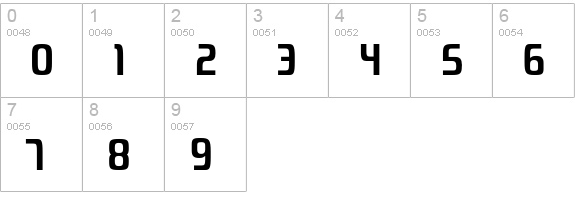
76London Font Details
The 76London font is a modern and stylish typeface that exudes sophistication and elegance. Its clean lines and sleek design make it perfect for a wide range of design projects, from branding to editorial layouts. The font features a unique blend of classic and contemporary elements, giving it a timeless appeal that is sure to make your designs stand out. One of the best things about the 76London font is that it is available for free download at FontsMarket.com. This means that you can easily access this premium font without having to spend a penny. Whether you are a seasoned designer or just starting out, the 76London font is a versatile and high-quality option that will elevate your work to the next level. With its strong presence and eye-catching aesthetic, the 76London font is sure to make a lasting impression on your audience. So why wait? Download this exceptional font today and take your designs to new heights!